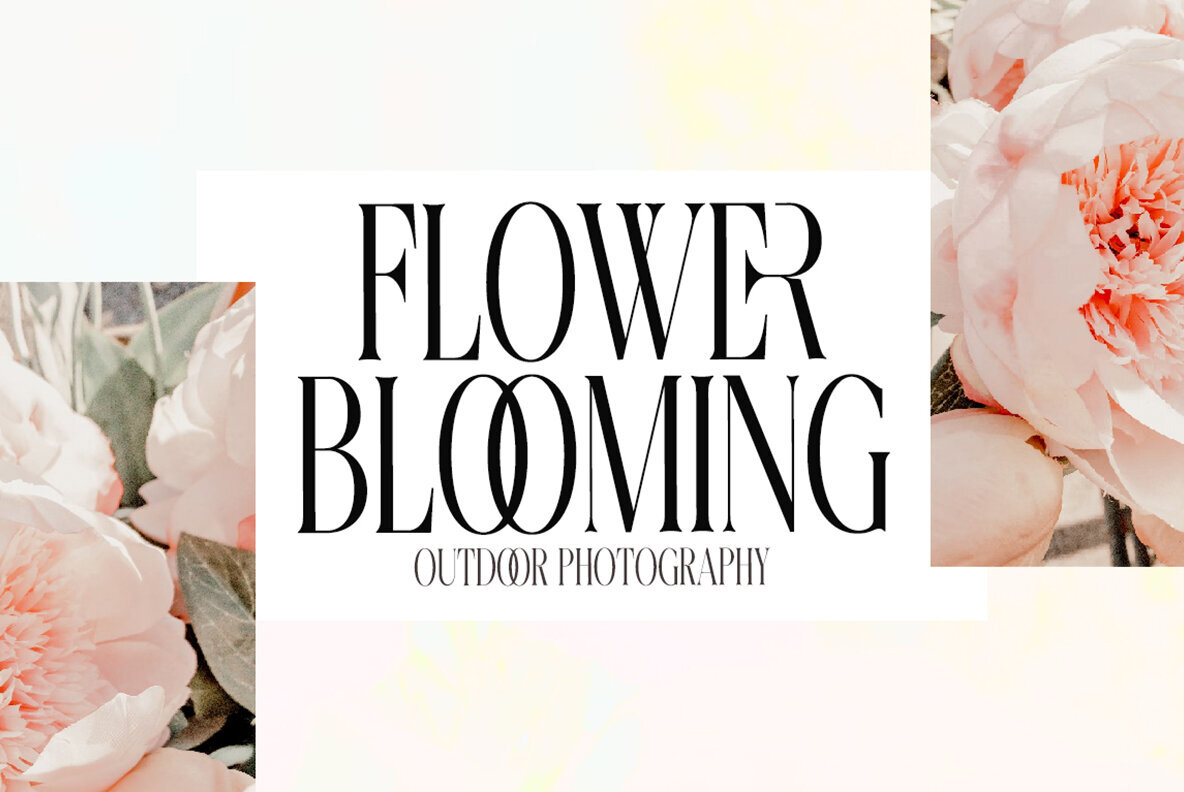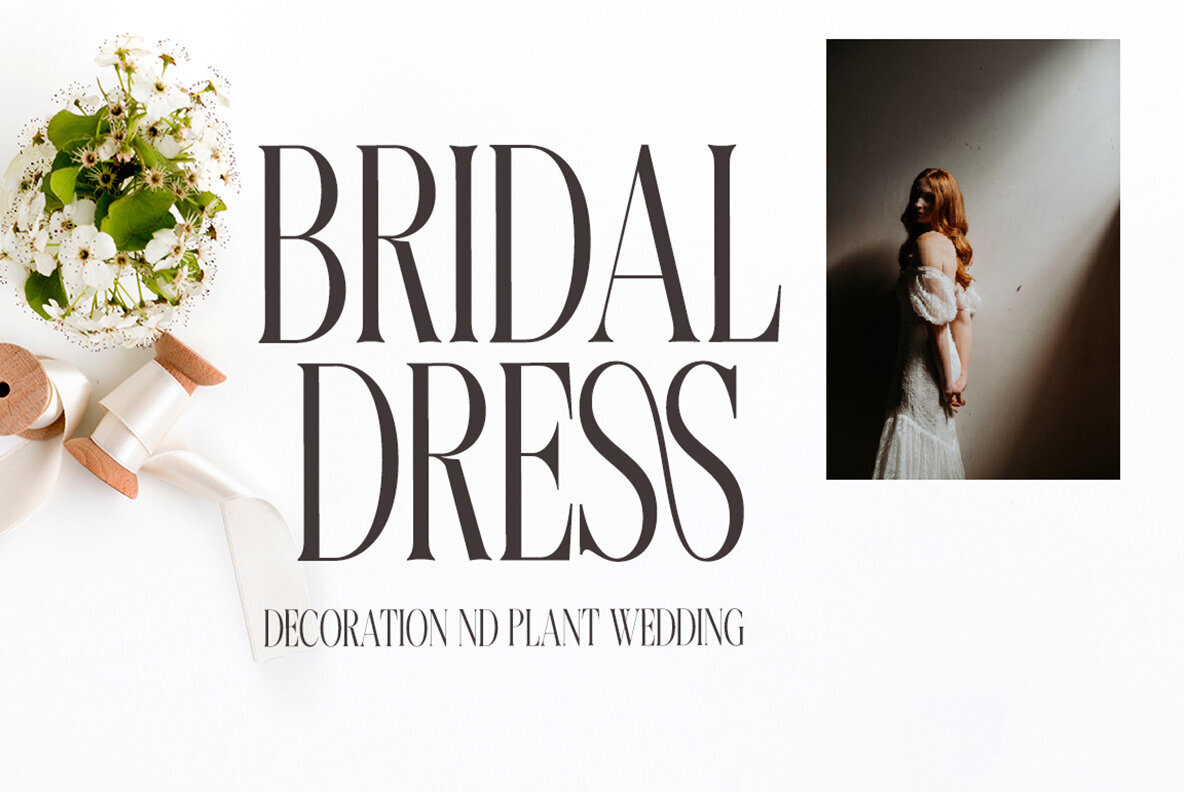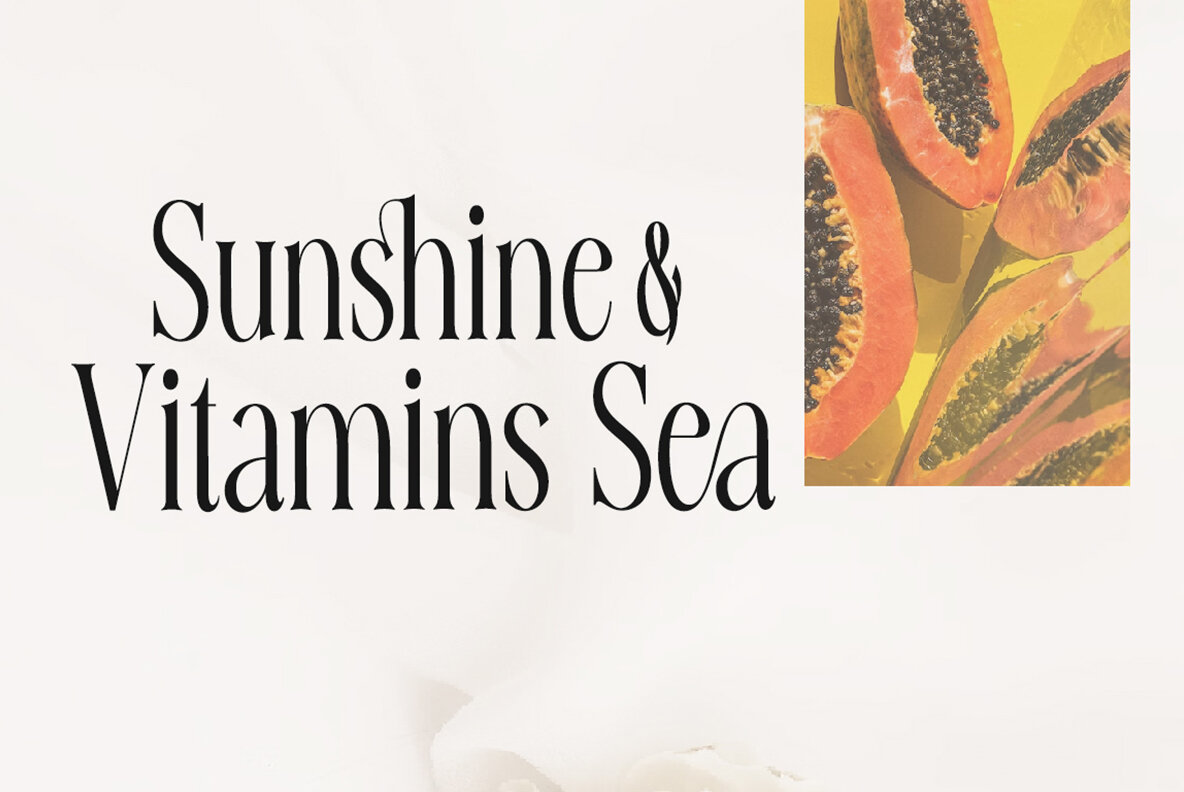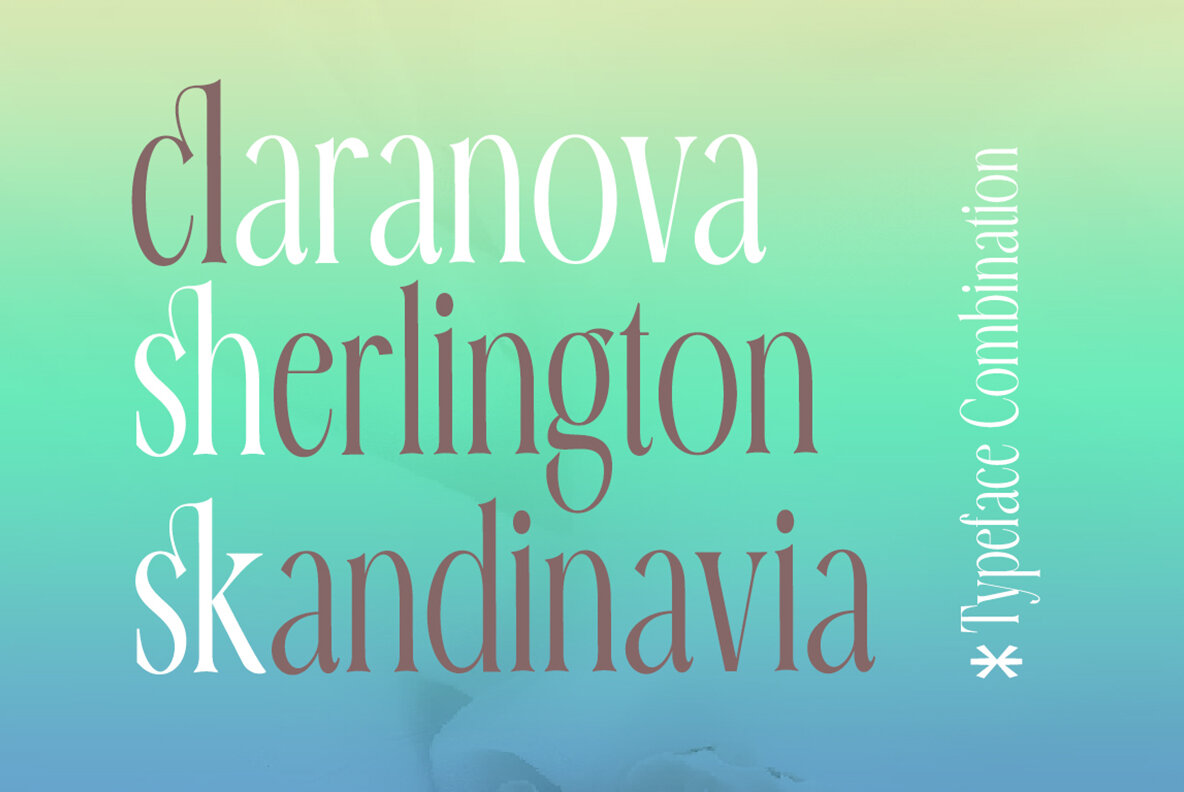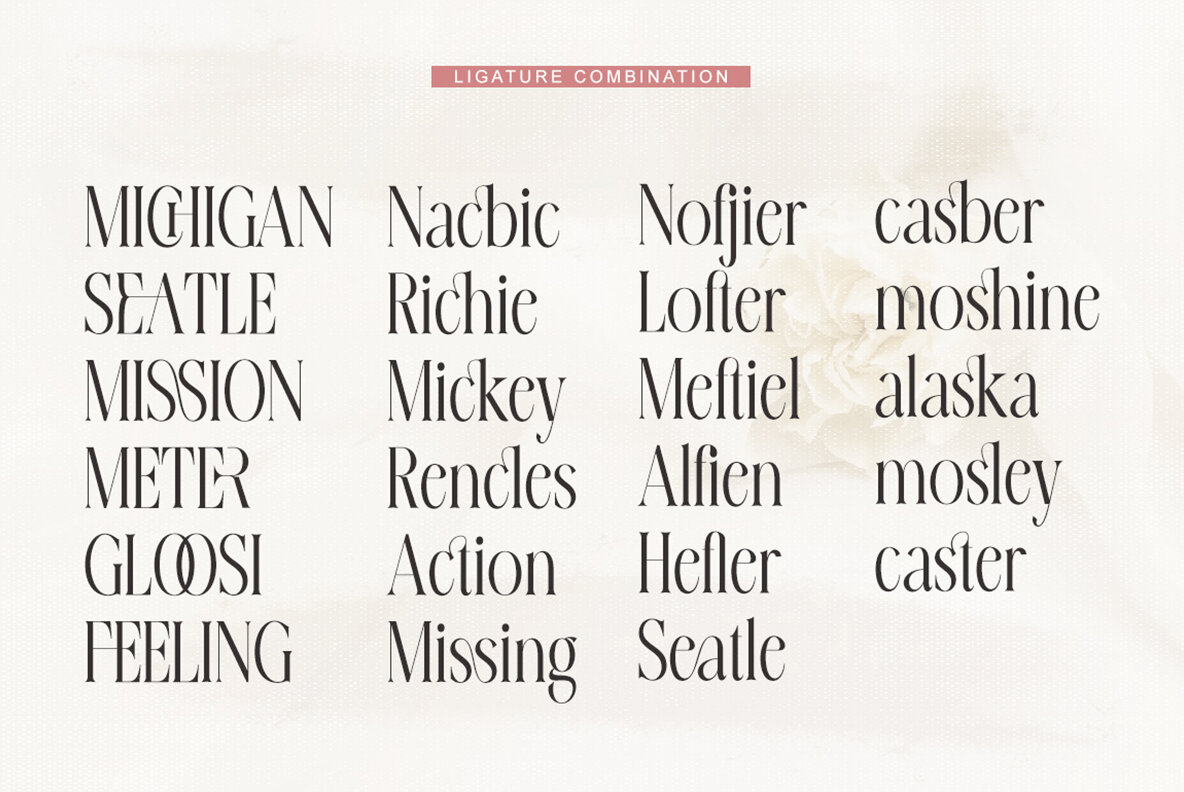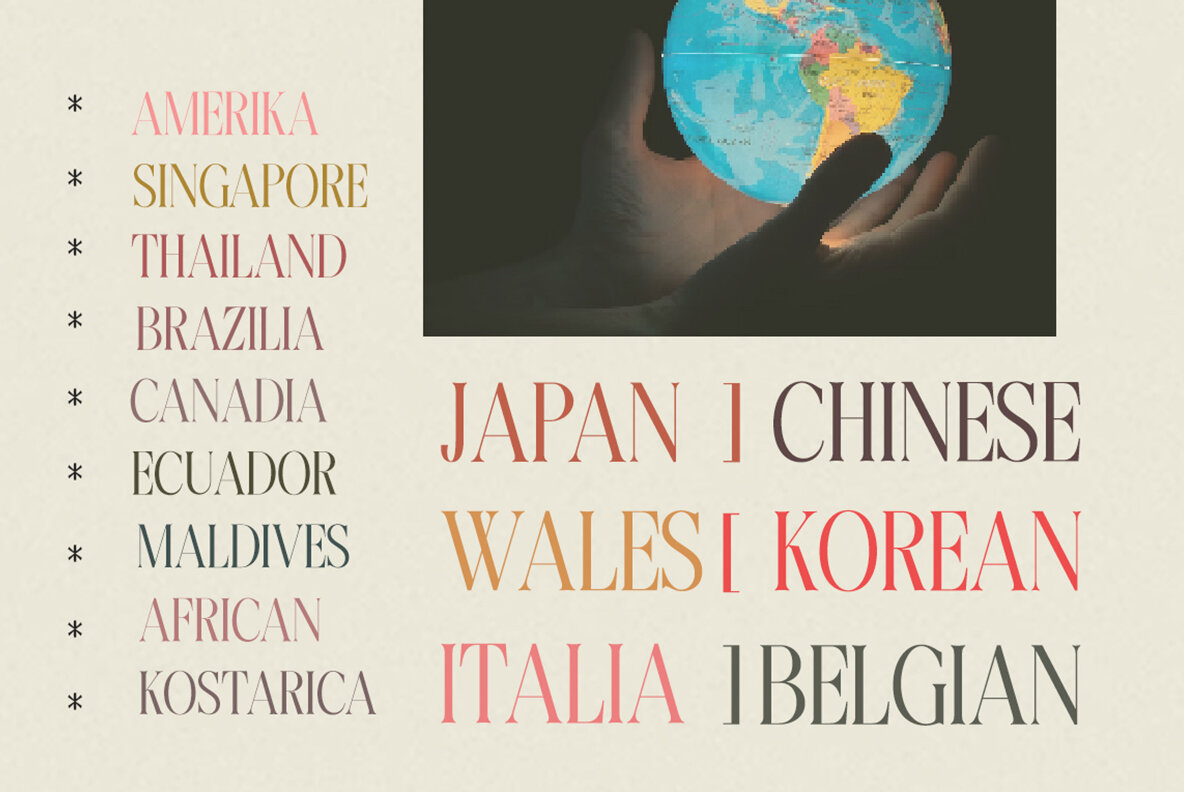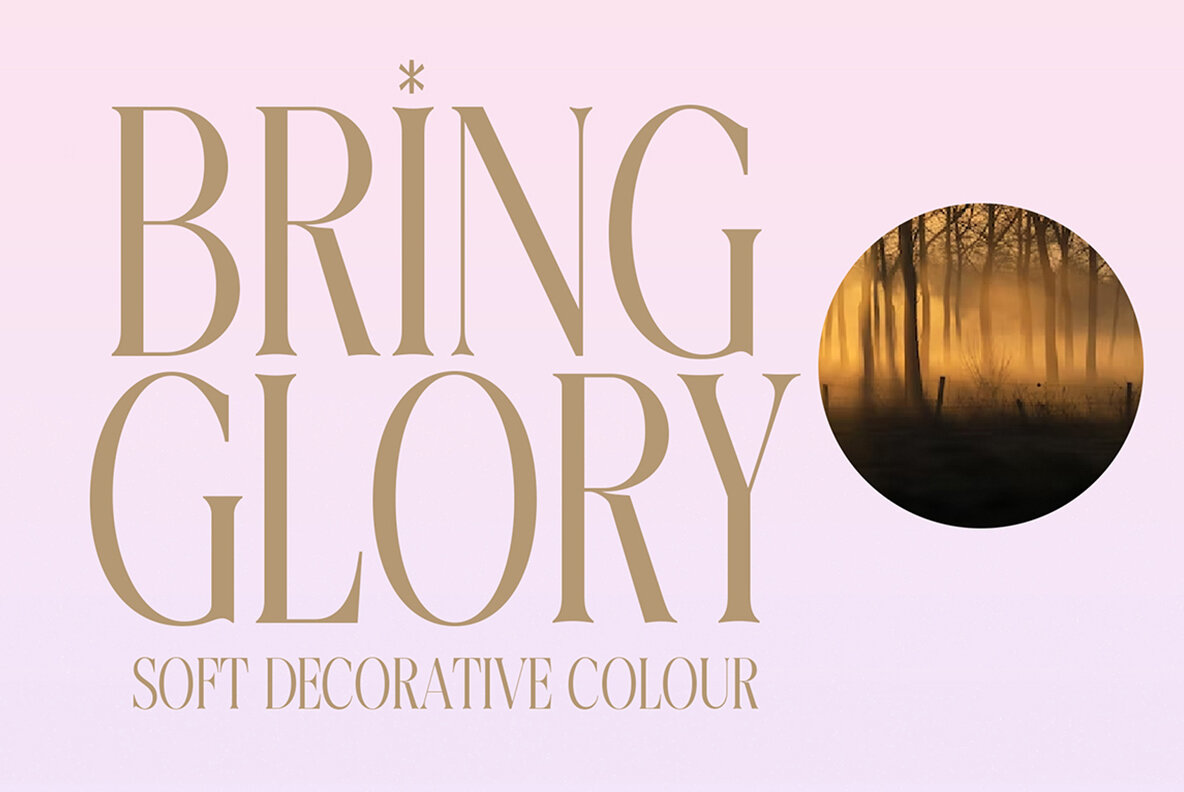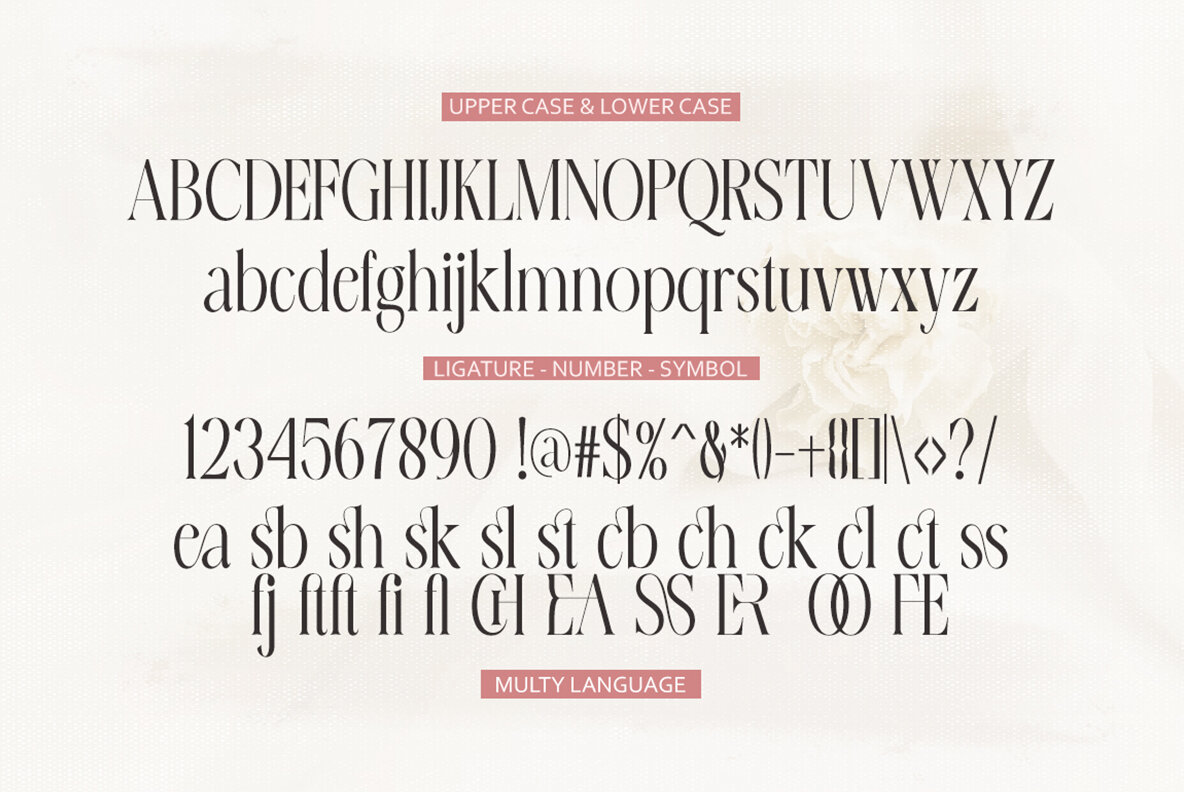
Erangle Font
Erangle Regular
Erangle is a sophisticated serif typeface inspired by a vintage type specimen discovered at an art fair. Its striking contrast between thin and thick lines, combined with graceful curves, makes Erangle ideal for logo and display uses. Feel free to reach out with any questions or concerns, and I'll respond as soon as possible.Erangle: Elegant Serif Typeface with Vintage Charm